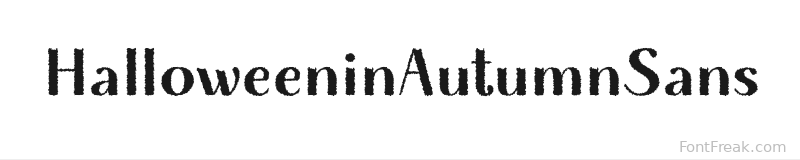
HalloweeninAutumn
HalloweeninAutumnSans
About HalloweeninAutumn
The HalloweeninAutumn font, designed by Misti Hammers, is a captivating display typeface that perfectly captures the spirit of the fall season. This decorative font features intricate, flowing letterforms that evoke a sense of whimsy and festivity, making it ideal for seasonal projects. The strokes exhibit a delicate contrast, with varying weights that enhance its visual appeal, while the spacing allows for excellent readability, even in longer texts.
HalloweeninAutumn is particularly well-suited for a variety of creative applications. It shines in designs for Halloween-themed parties, where it can be used on invitations to set the mood. Additionally, this font works wonderfully for autumn wedding invitations, adding a touch of elegance and charm. Graphic designers may find it effective for creating eye-catching movie posters that highlight seasonal releases or spooky themes. Restaurant menus featuring seasonal dishes can also benefit from this font, as it adds a festive flair that complements the culinary experience. Lastly, content creators seeking to enhance social media graphics during the fall season will appreciate the unique character that HalloweeninAutumn brings to their posts.
The target audience for this font includes graphic designers, small business owners, and content creators who are looking to add a distinctive and seasonal touch to their projects. The HalloweeninAutumn font free download makes it accessible for anyone wanting to incorporate a touch of autumnal magic into their work.
What sets HalloweeninAutumn apart is its ability to blend elegance with a playful spirit, striking a perfect balance for both casual and formal designs. Its unique letterforms and seasonal charm make it a must-have for anyone looking to celebrate the autumn season creatively.